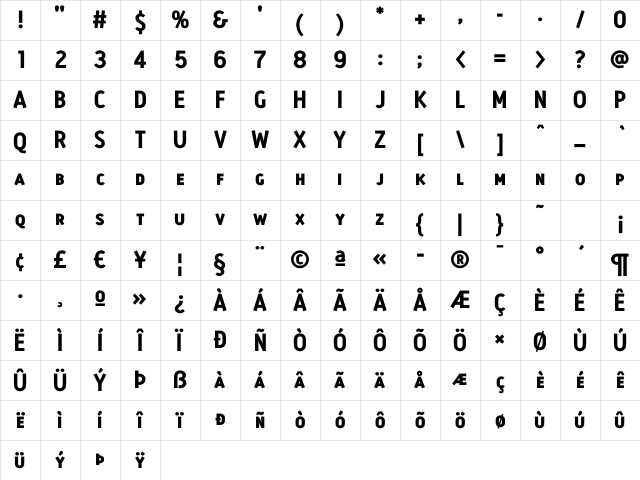
AntitledBold Caps Regular Free Font
AntitledBold Caps Regular
Design Context for AntitledBold Caps
AntitledBold Caps is a composed and adaptable typeface that performs quietly and consistently across a wide range of design contexts. Its bold stroke weight gives it real presence on the page.